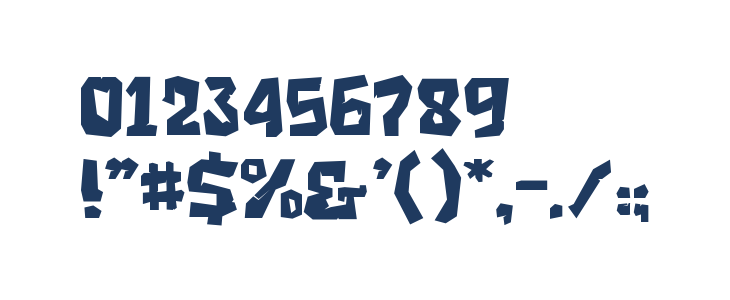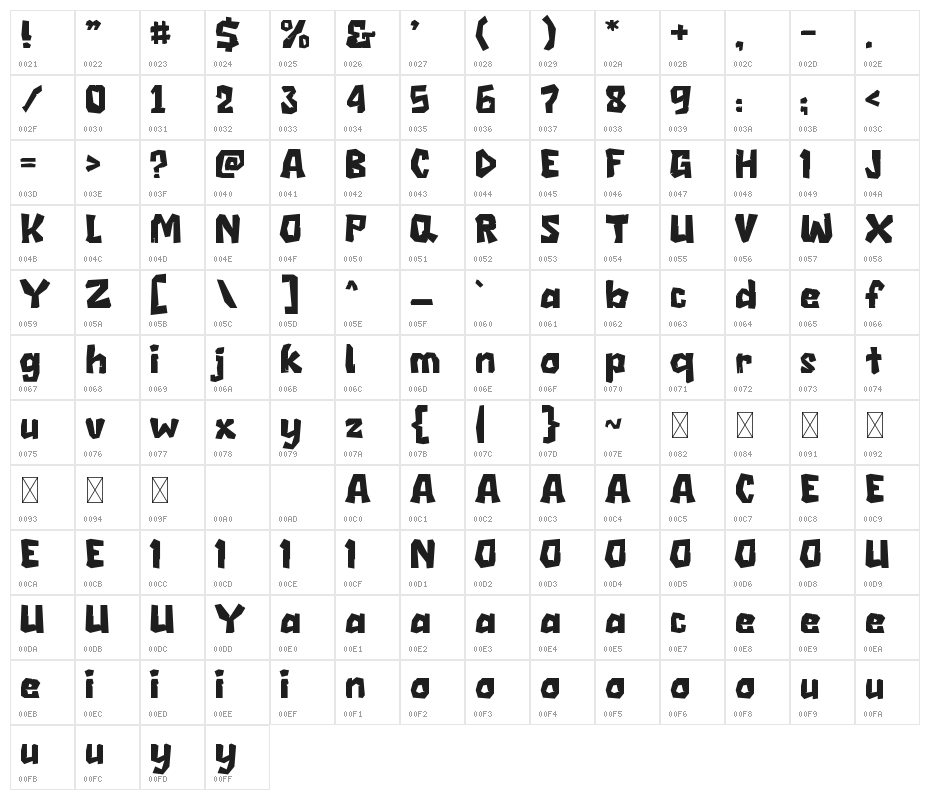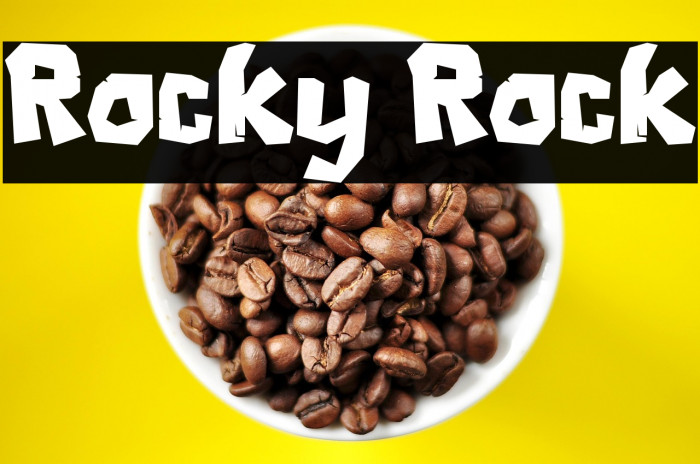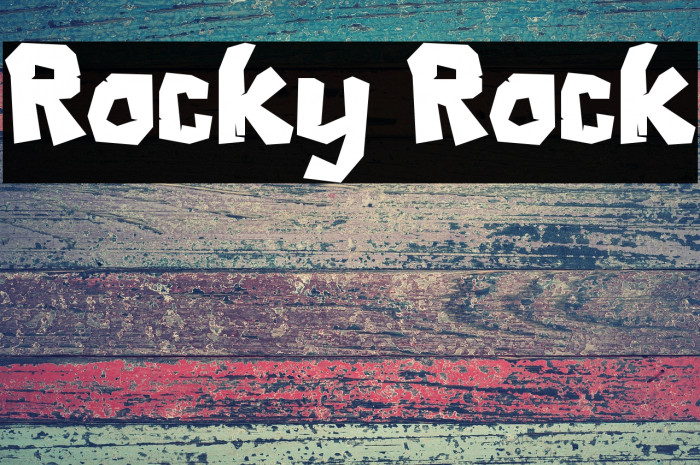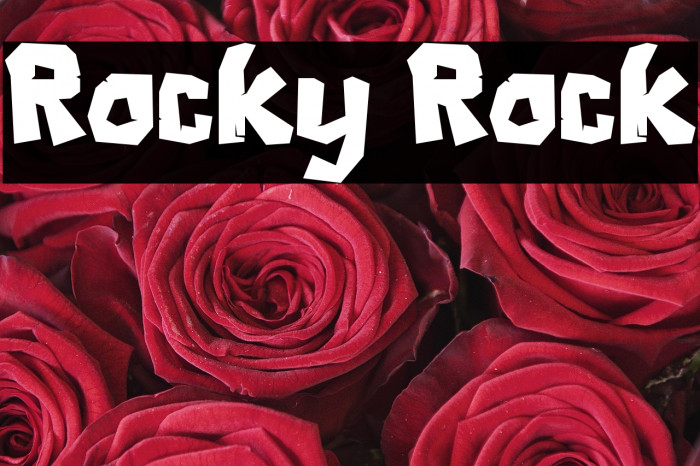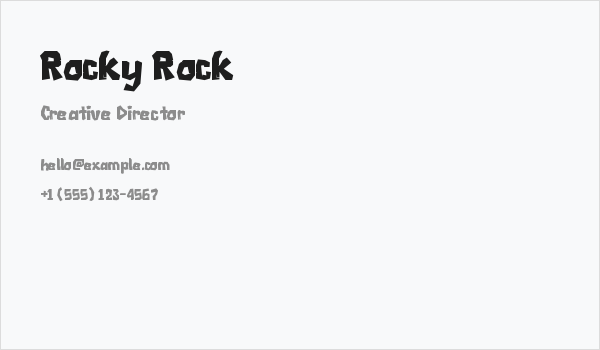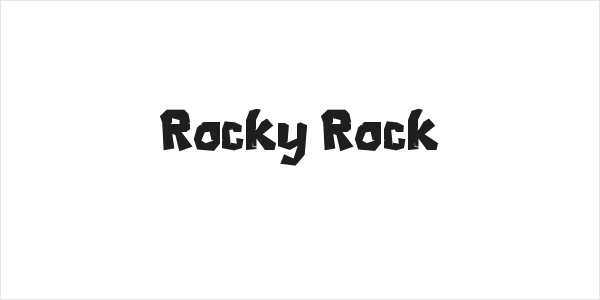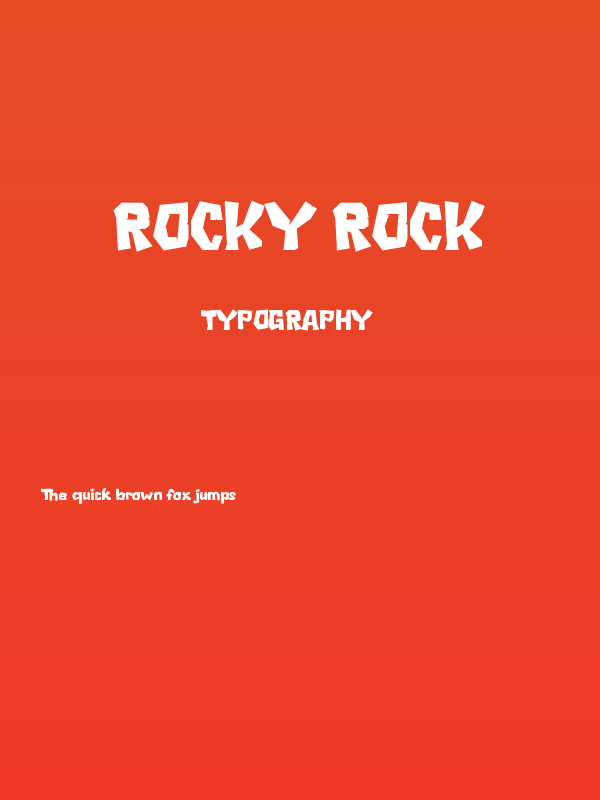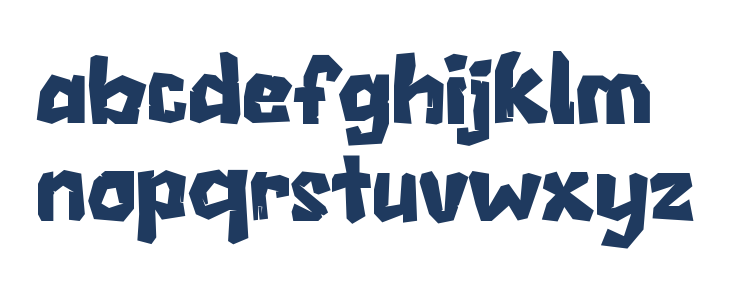
Rocky Rock Font
Rocky Rock Description
This font features a bold and rugged design with a distinctly angular and geometric style. Each character is crafted with sharp edges and irregular shapes, giving it a dynamic and energetic appearance. The uppercase and lowercase letters maintain a consistent style, with a strong emphasis on boldness and impact. Numbers and special characters follow the same design principles, ensuring uniformity across all glyphs. The font's unique style makes it stand out, ideal for projects that require a strong visual presence.
| Proposed Projects | Perfect for posters, logos, video game graphics, and any project needing a bold, impactful typeface. |